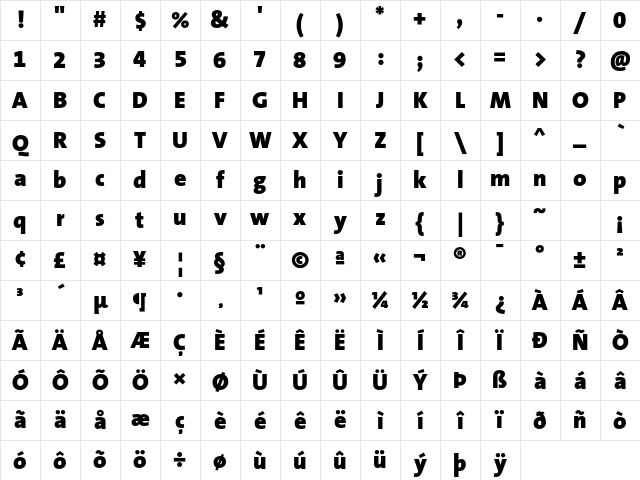
TheSans B9 Black
Style: B9 Black
Design Context for TheSans
TheSans is a composed and adaptable typeface that performs quietly and consistently across a wide range of design contexts.